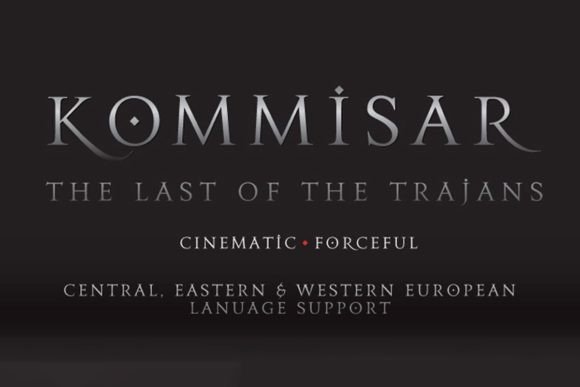
Unleash the power of authority and command with Kommisar Font, the ultimate serif font family that exudes boldness and grandeur. Inspired by the Trajan capital's inscriptions and infused with the artistic sensibilities of Father Edward Catich, Kommisar reigns supreme in conveying an air of authority and gravitas.
Kommisar's regal presence makes it the perfect choice for advertising, where its commanding aura captures attention and leaves a lasting impression. Its majestic strokes add a touch of grandeur to movie posters, elevating them from mere titles to cinematic masterpieces. Movie titles adorned with Kommisar radiate an epic aura, promising tales of bravery, intrigue, and otherworldly adventures.
In the realm of identity design, Kommisar establishes a strong and unwavering presence. Brands seeking to project an image of authority and trust find their ideal companion in Kommisar, as it effortlessly conveys a sense of stability and reliability. Whether gracing logos, business cards, or letterheads, Kommisar instills confidence and inspires trust.
Kommisar's versatility extends to music packaging and promotion design, where its bold strokes and commanding presence resonate with the raw energy and passion of music. From metal's thunderous roar to hip-hop's rhythmic pulse, Kommisar effortlessly captures the essence of diverse musical genres. Let your music's message shine through, amplified by Kommisar's resounding voice.
Elevate your creative endeavors with Kommisar, a font that transcends boundaries and fuels your imagination. Its regal stature lends itself perfectly to movie titling, where it sets the stage for epic tales and captivating visuals. Band logos adorned with Kommisar radiate a sense of authenticity and power, attracting fans and leaving an indelible mark on the music scene.
Kommisar's versatility knows no bounds, making it the perfect choice for packaging design. From sleek and sophisticated to playful and whimsical, Kommisar adapts effortlessly to convey the unique personality of your product. Let your packaging speak volumes, enticing customers with its commanding presence and captivating charm.
Kommisar is more than just a font; it's a gateway to a world of authority, grandeur, and creativity. Its bold strokes and commanding presence demand attention, while its versatility allows it to adapt effortlessly to a wide range of applications.